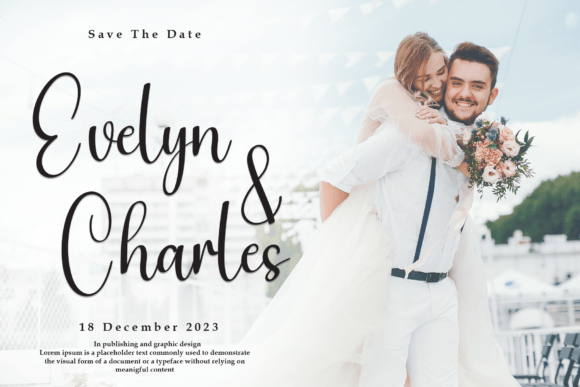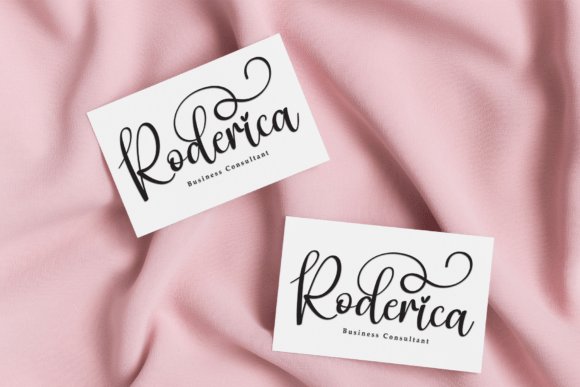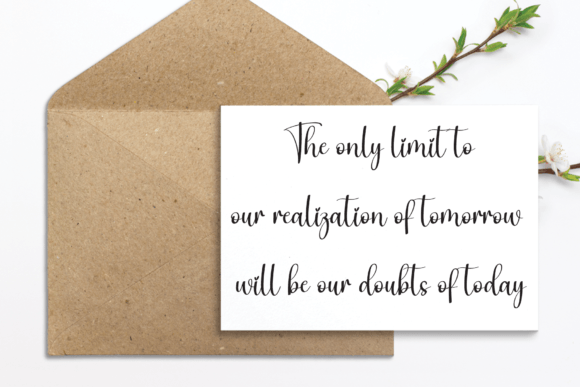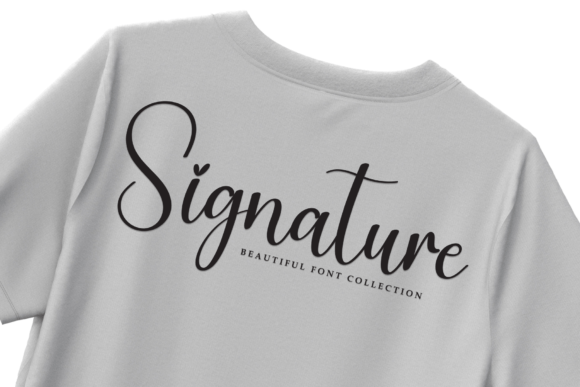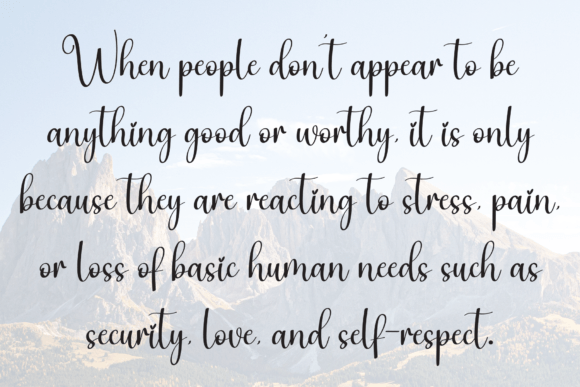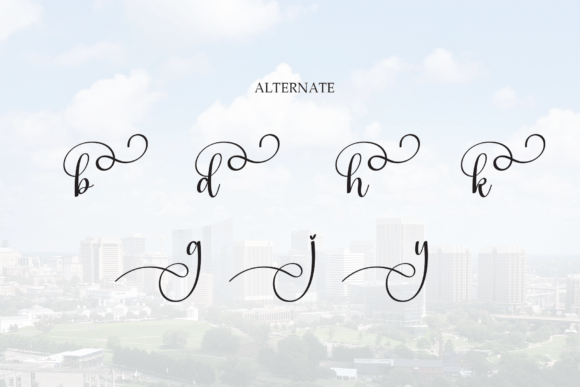
Introduction to Medway Font
As a designer, have you ever found yourself in a creative moment, staring at a blank canvas, trying to convey a heartfelt message to a loved one? The right font can make all the difference, elevating your words from mere text to a beautiful expression of your feelings. That’s where the Medway Font comes in – a sweet and friendly handwritten font that exudes warmth and approachability.
With its gentle curves and soft lines, the Medway Font creates a welcoming tone that’s perfect for heartfelt messages, invitations, and personal touches. As a valuable design resource, this font is a must-have for any creative project. Whether you’re looking to add a personal touch to a wedding invitation or a birthday card, the Medway Font is sure to make your message stand out.
As a free download with a high-quality design, the Medway Font is available with a transparent background, making it easy to integrate into your creative project. Its versatility and approachable nature make it a valuable asset for designers, allowing you to add a touch of warmth and personality to your designs.
Key Features of Medway Font
- High-quality design resource for creative projects: Medway Font offers a unique and stylish look that can elevate any design.
- Transparent background: The font features a transparent background, allowing for seamless integration with any design element.
- High-resolution design: The font is designed at a high resolution, making it suitable for use in large-scale designs and print materials.
- Unique characteristics: Medway Font features a distinctive and modern design, with a range of styles and weights to suit different creative projects.
Honest Review: Medway Font
I recently had the chance to work with the Medway Font in a creative project and I must say it’s been a game-changer. This design resource is a high-quality addition to any designer’s toolkit, offering a clean and modern aesthetic that’s perfect for a wide range of applications.
- ✨ Clean and minimalist design that’s easy to read
- ✨ High-quality vector files for seamless scalability
- ✨ Transparent background for effortless integration into any design
- ⚠️ Limited character set – may not be suitable for projects requiring extensive typing
- ⚠️ No bold or italic versions available
Overall, I’m impressed with the Medway Font and would definitely recommend it for any designer looking for a free download that’s both stylish and functional. With its high-quality design and transparent background, it’s a great addition to any creative project.
Common Use Cases for Medway Font
The Medway Font is ideal for various creative projects, including graphic design, digital art, and print design. It’s also suitable for presentations, reports, and documents that require a modern and professional touch.